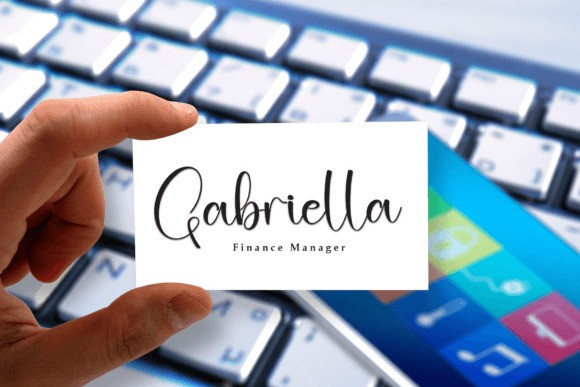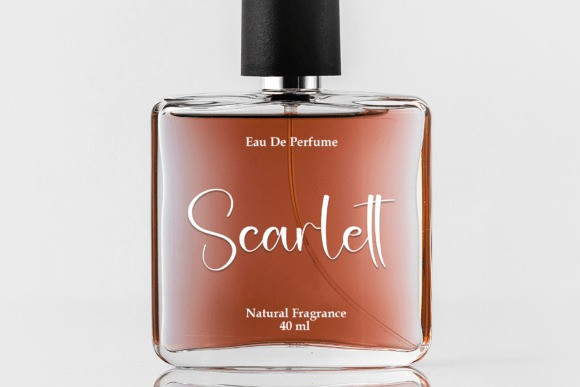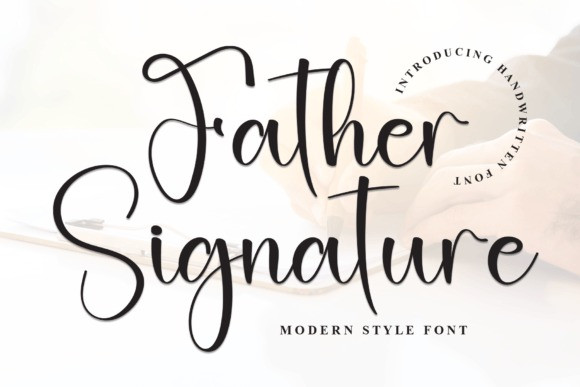
Father Signature Font
Father Signature Font is a sweet and friendly handwritten font. Its natural and unique style makes it incredibly fitting to a large pool of designs. The only limit is your imagination!